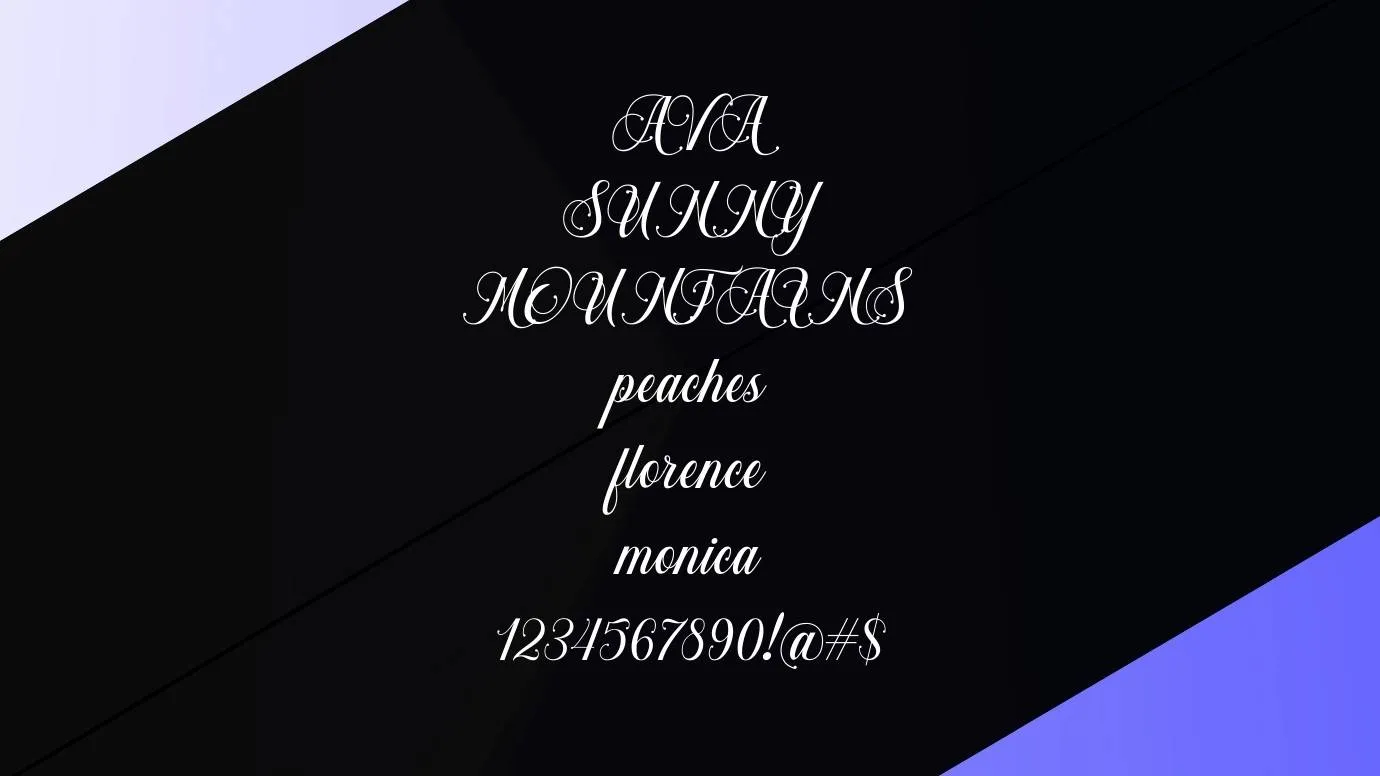
Chalisa Oktavia Font was designed by Indonesian-type designer Eko Bambang Widodo. This font family consists of four fonts: Chalisa Oktavia, Chalisa Oktavia Bold, Chalisa Oktavia Italic, and Chalisa Oktavia Bold Italic.
It is based on the chalisa script, which is a popular form of calligraphy in Indonesia. The Chalisa Oktavia texture is named after the Indonesian city of Oktavia, which is located on the island of Java.
Chalisa Oktavia texture was designed by Indonesian-type designer Eko Bambang Widodo.
This single, appealing style incorporates several elements, such as capital and lowercase letters, numbers, punctuation, characters, special symbols, glyphs, and language support.
| Style | Calligraphy |
| Designer | Eko Bambang Widodo |
What is Chalisa Oktavia typeface?
It is a font family based on the chalisa script, which is a popular form of calligraphy in Indonesia. It is named after the Indonesian city of Oktavia, which is located on the island of Java.
What are the features of the Chalisa Oktavia typeface?
It is suitable for a variety of applications, such as headlines, logos, and body text. This style is available in both TrueType and OpenType formats. It has keen futures like – Alternates, Contextual Alternates, Discretionary Ligatures, Standard Ligatures, Stylistic Sets, and Swashes.